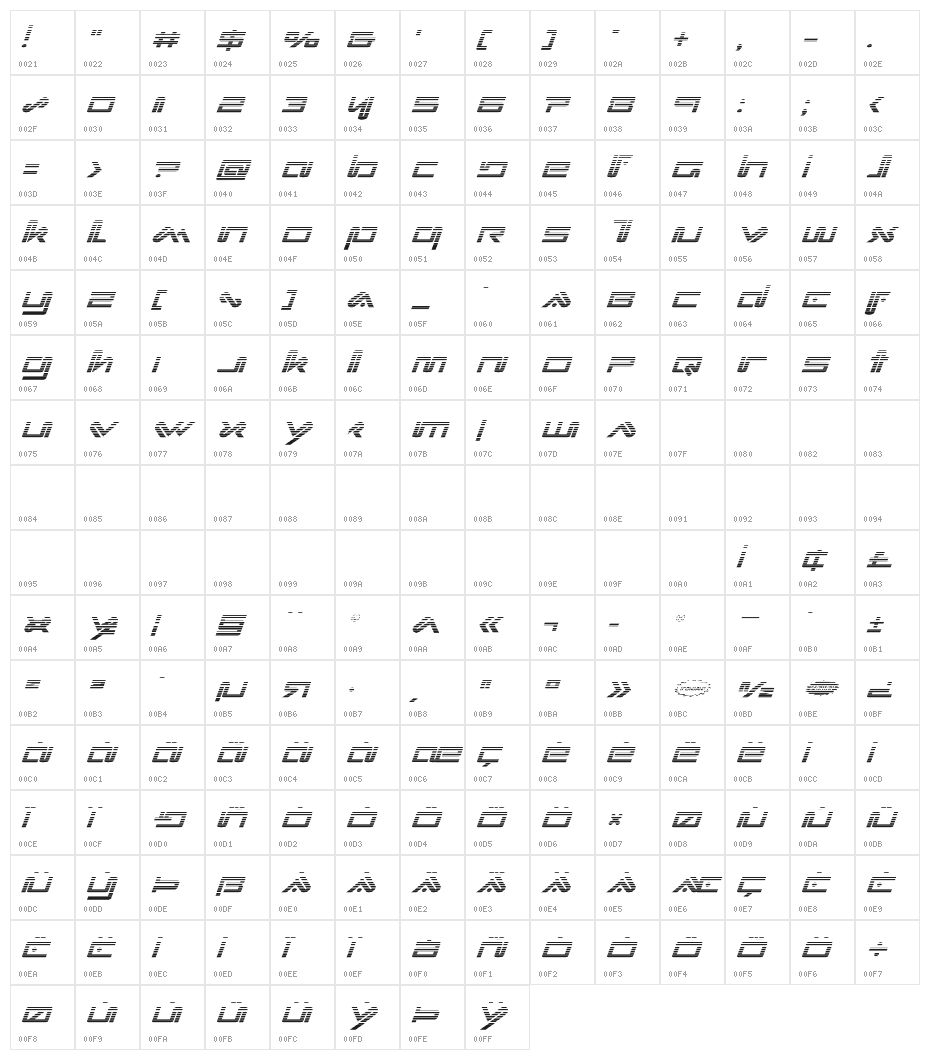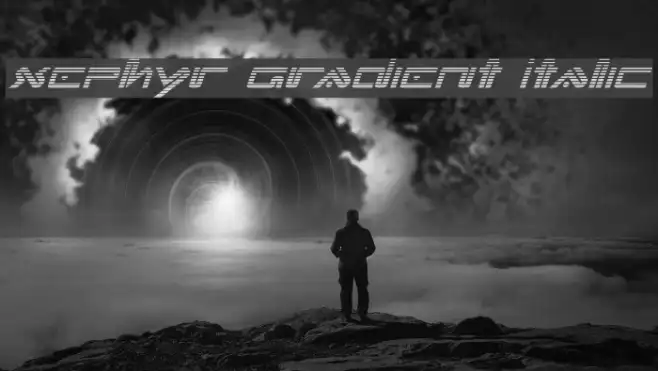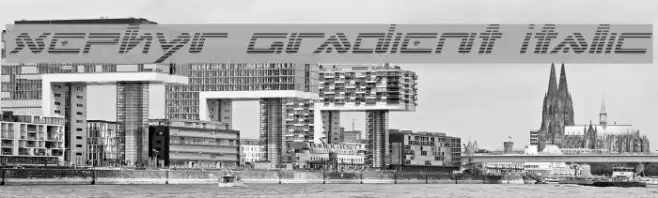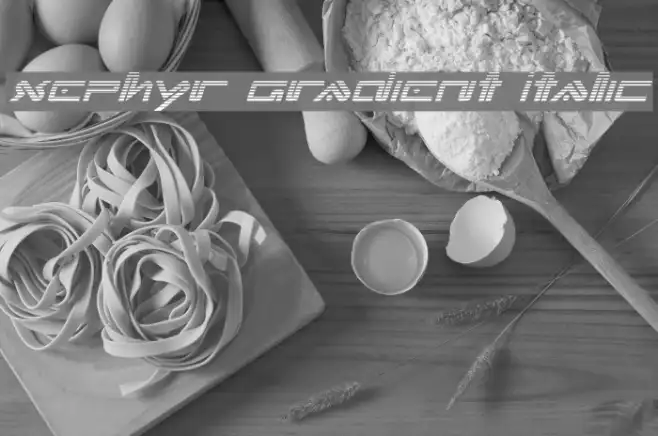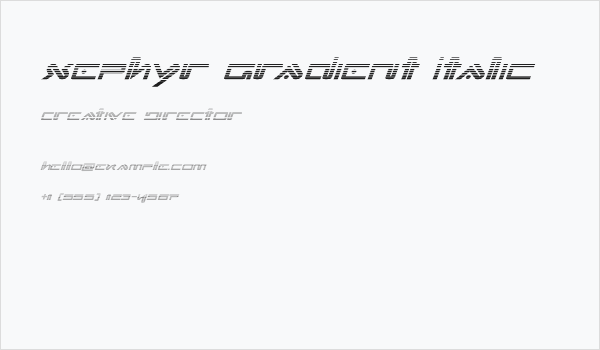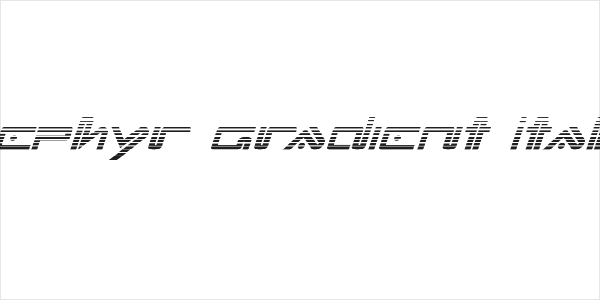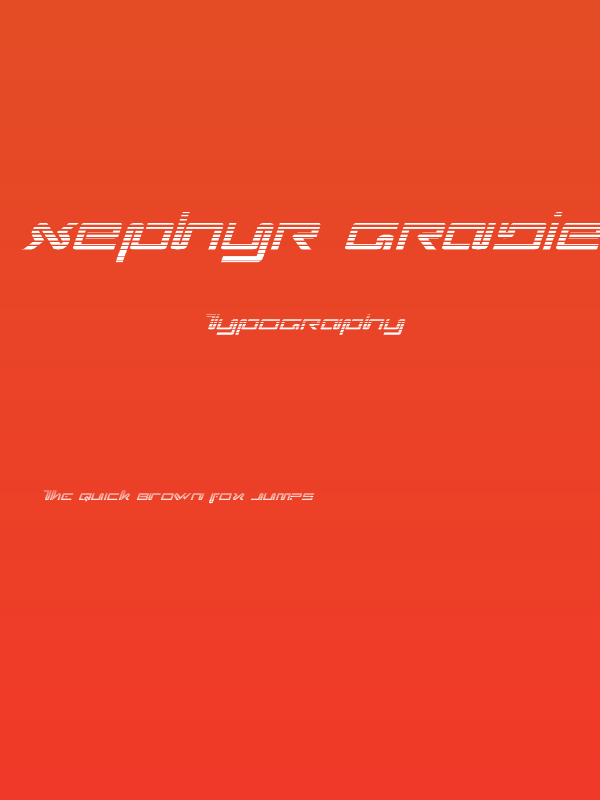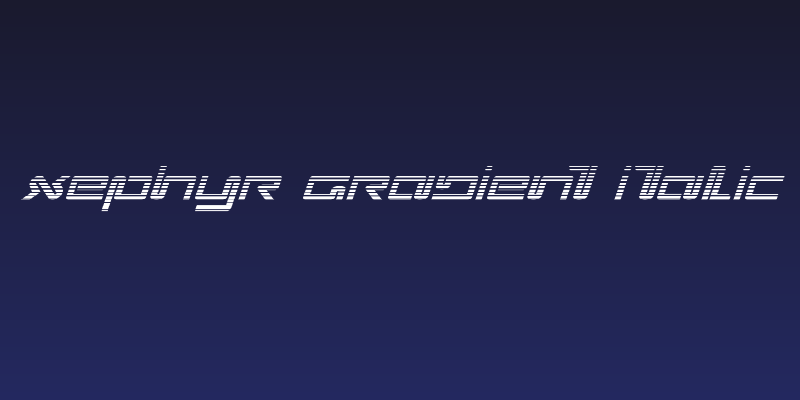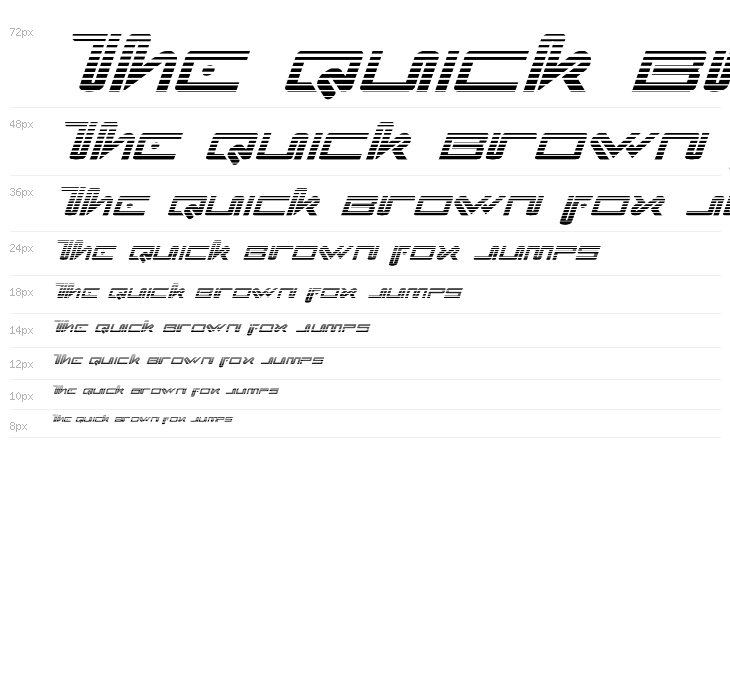
Xephyr Gradient Italic Font
Xephyr Gradient Italic Description
This font features a futuristic and dynamic design, characterized by its slanted, italicized form and distinctive gradient effect. The characters are composed of parallel lines that create a sense of movement and energy, making it ideal for modern and tech-oriented projects. The uppercase and lowercase letters maintain a consistent style, with sharp angles and a sleek appearance. Numbers and special characters are designed to match the overall aesthetic, ensuring a cohesive look across all text elements.
| Proposed Projects | Ideal for technology branding, sci-fi posters, video game titles, and modern advertising campaigns. |